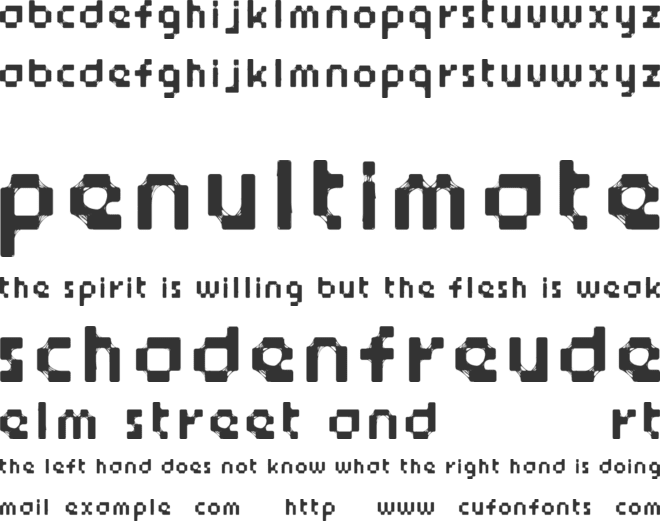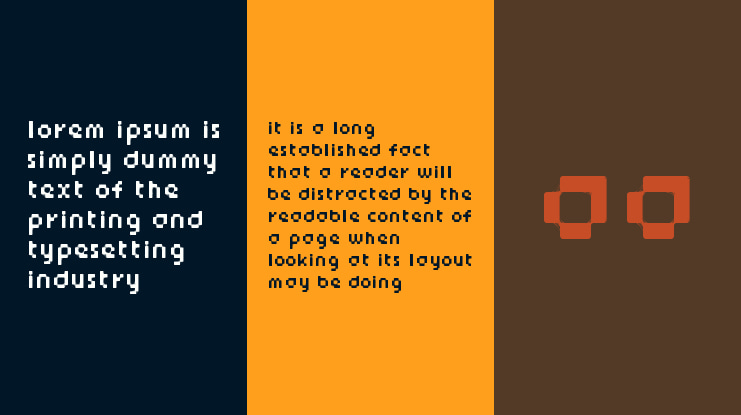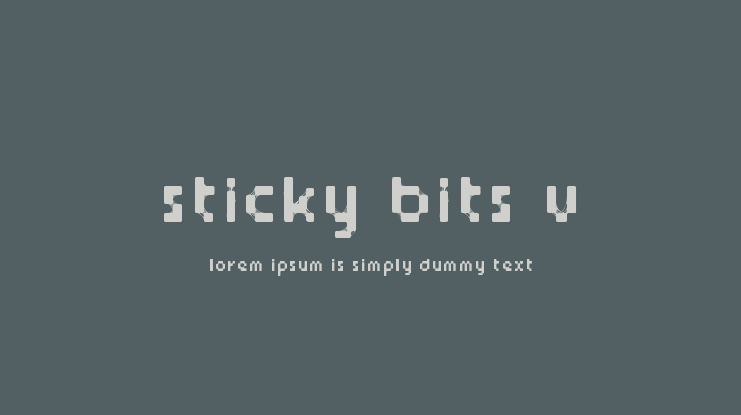
Sticky bits v2 Font
Lander De Wandel
This is a font I made for my class Graphic Design (third bachelor). It only contains the lowercase, and is best used in large point size. It is also very readable in smaller pt size, though the sticky effect is lost that way.
The shape is based on another font i have uploaded, which goes under the name Pix. That font doesn't have the sticky effect, but it does contain both lower- and uppercase letters.